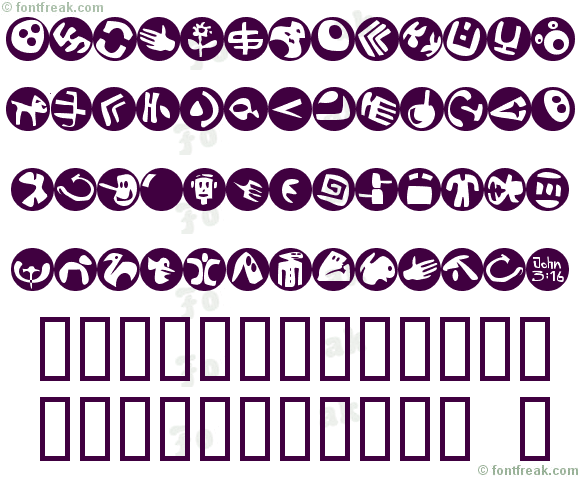
Sam's Dingbats No.2
Sam's Dingbats No.2 — Character Map
About Sam's Dingbats 2
Sam's Dingbats 2, designed by Samuel Marcius, is a delightful collection of decorative dingbats that adds a whimsical touch to any project. This freeware font is a treasure trove of unique icons and symbols, perfect for enhancing your creative endeavors. The visual style of Sam's Dingbats 2 is characterized by its playful and imaginative designs, which exhibit a consistent stroke weight and a charming sense of balance. Each symbol is crafted with an attention to detail, ensuring they are not only visually appealing but also versatile for various applications.
The font features a range of decorative elements that can bring life to your designs. The icons include everything from playful shapes to thematic illustrations, making it an ideal choice for graphic designers looking to inject some personality into their work. Some of the best use cases for Sam's Dingbats 2 include wedding invitations, where its charming symbols can accentuate the romantic theme; children’s book illustrations, where whimsical icons can capture the imagination; restaurant menus, adding flair to sections or highlighting specials; and social media graphics, where eye-catching symbols can enhance engagement. This font is particularly appealing to graphic designers, small business owners, and content creators who want to make their projects stand out.
What makes Sam's Dingbats 2 truly exceptional is its ability to blend functionality with creativity. The icons are not only easy to use but also versatile enough to adapt to various styles and themes. By incorporating this font into your design toolkit, you can elevate your projects and captivate your audience. Don’t miss out on the chance to enhance your creative work with the Sam's Dingbats 2 font free download, a perfect addition for anyone looking to add flair and fun to their designs.